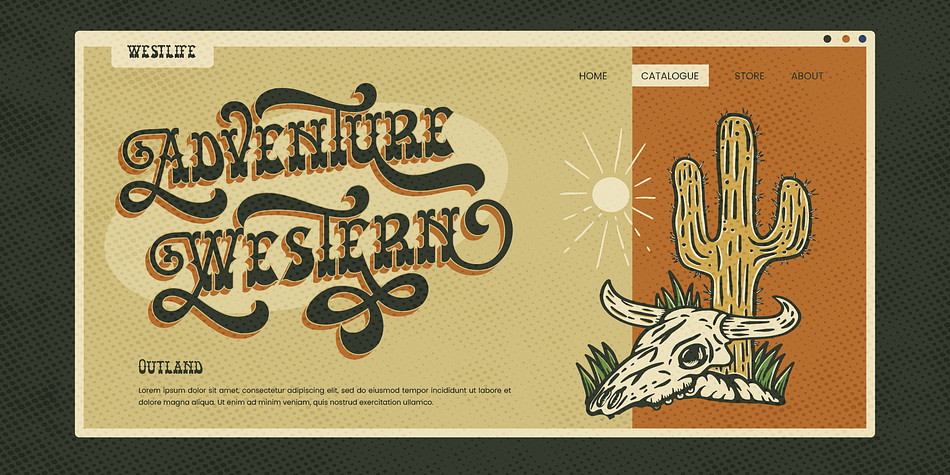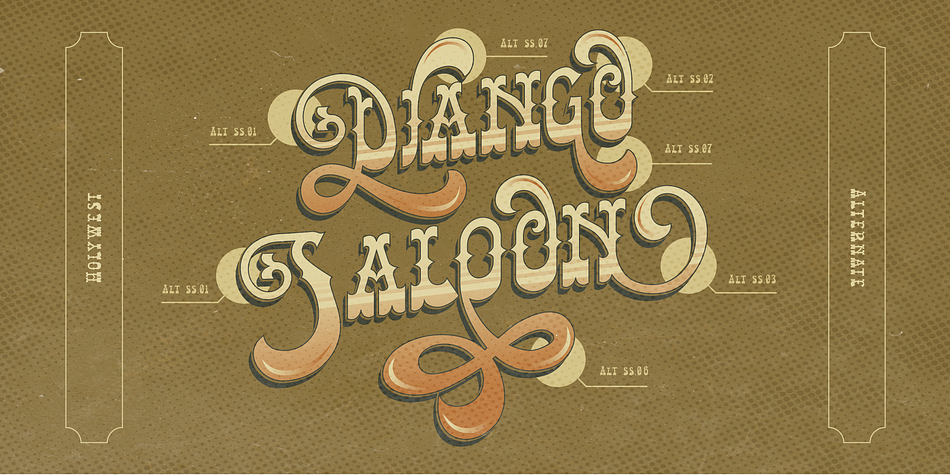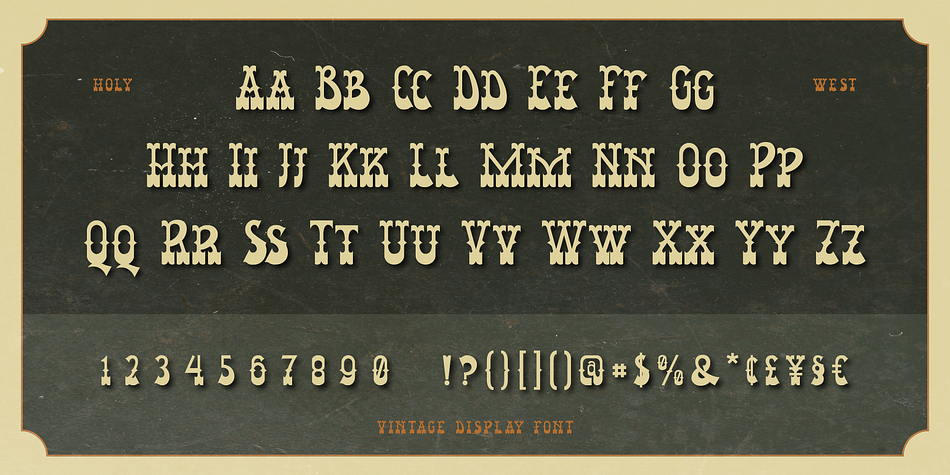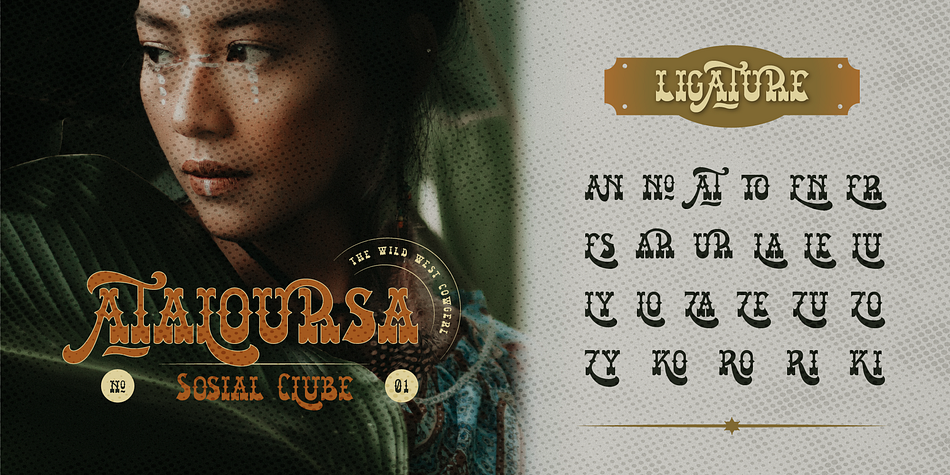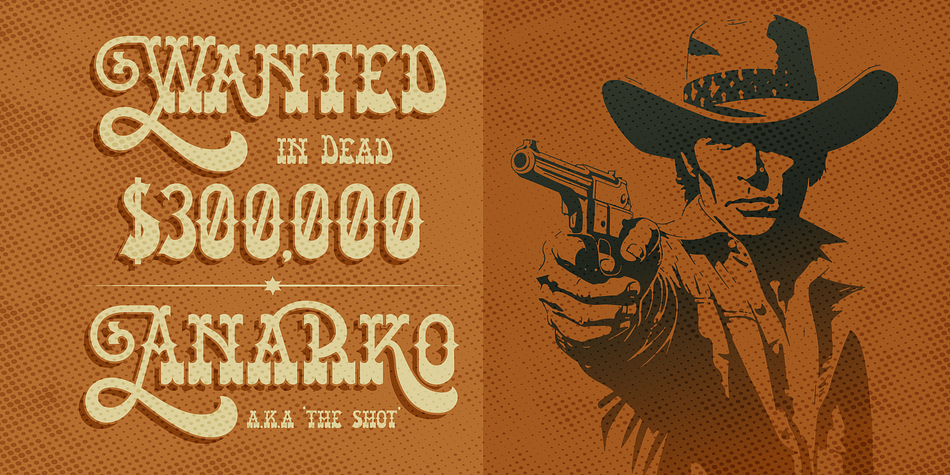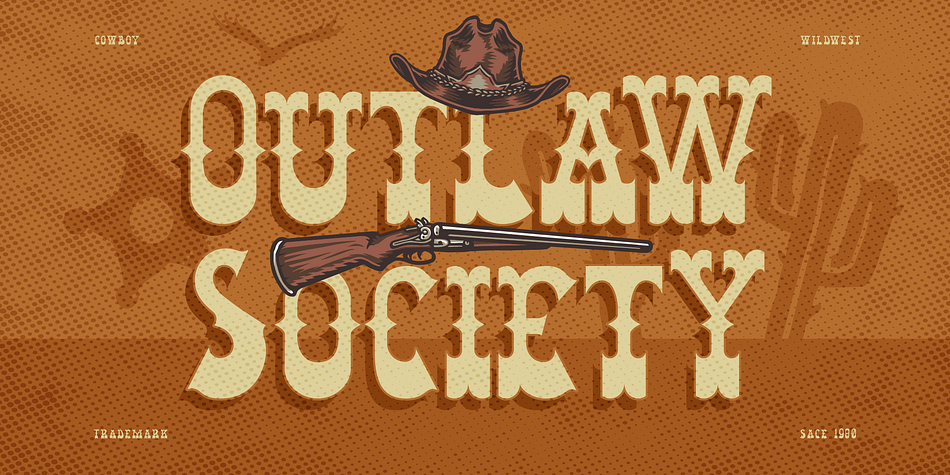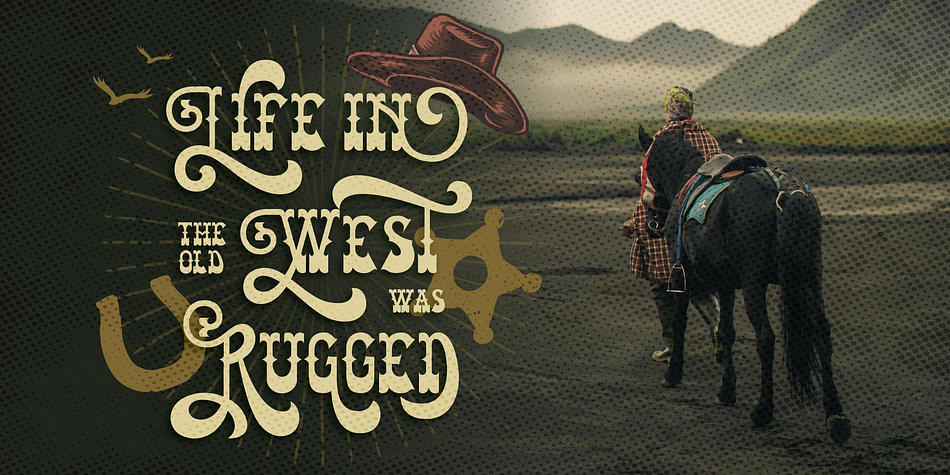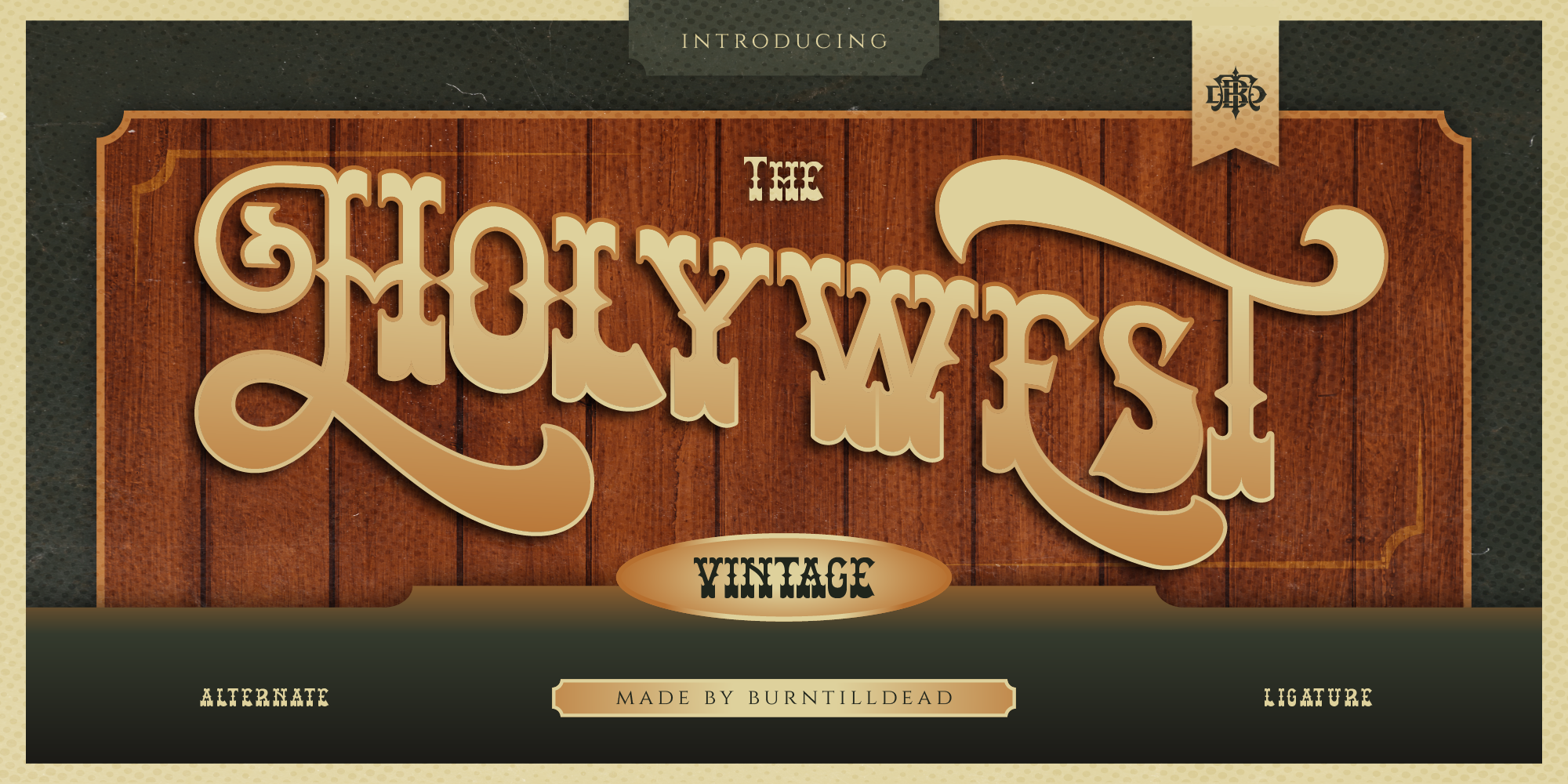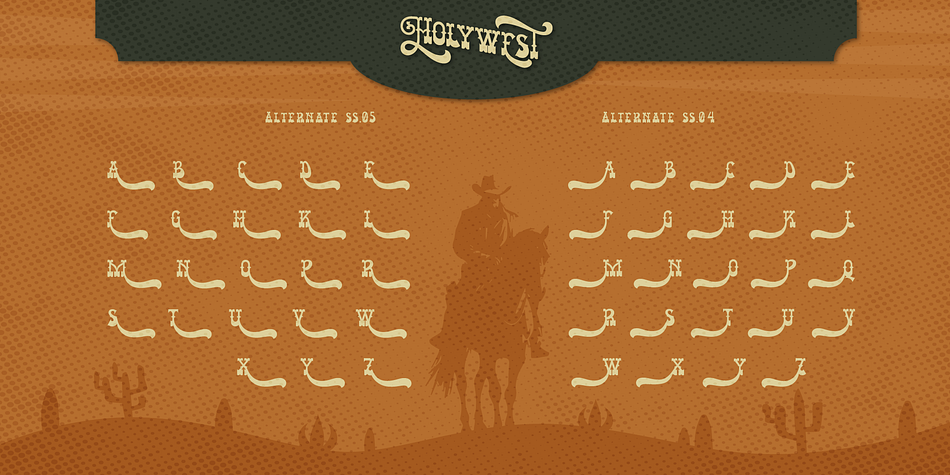
Holywest
Designed by Eric Kurniawan, Holywest is a western font family published by Burntilldead.
Proudly present Holywest, a vintage display font that evoke the era of cowboys and saloons. Holywest show the essence of vintage aesthetic and cowboy culture with the decorative serif type. This font is a good choice for any design project that need sense of a Wild West or historic American.
* A - Z set
* Number
* Punctuation
* Alternates
* Ligature
* Multilingual